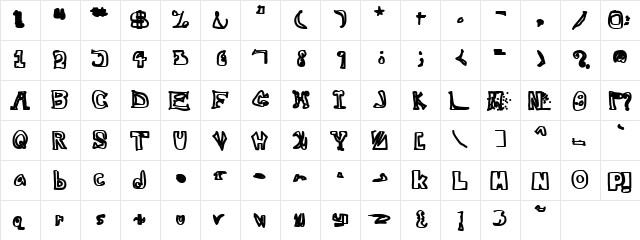
Trash Godown Regular
Design Context for Trash Godown Typeface
Trash Godown is a composed and adaptable typeface that performs quietly and consistently across a wide range of design contexts.
Pro Tip: Use Trash Godown in both headline and body roles to test its range before committing to a single application.